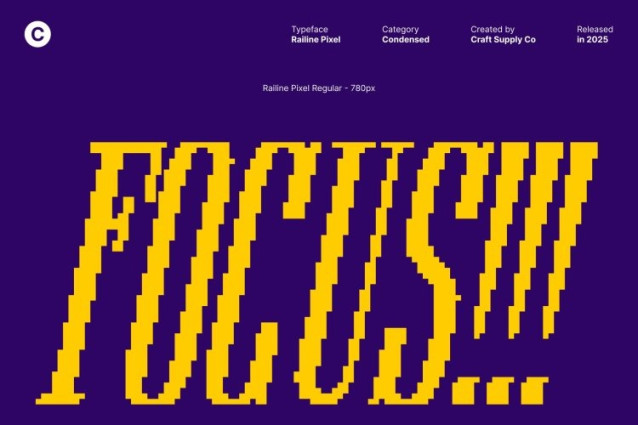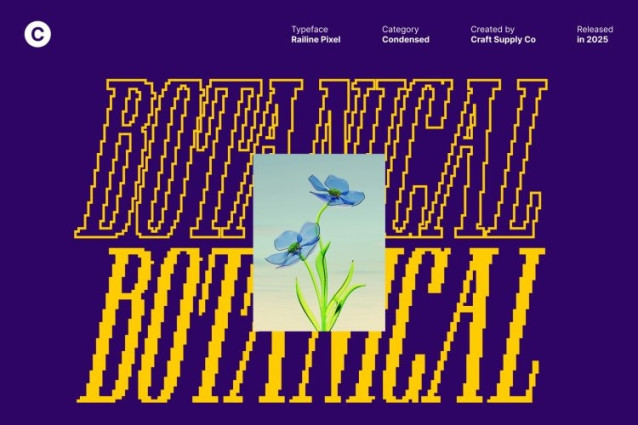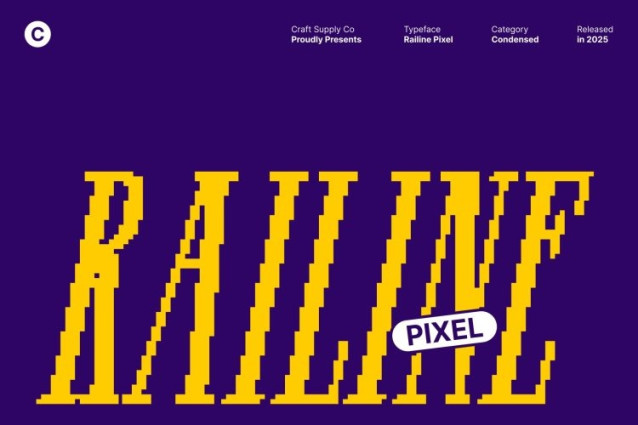
Railine Pixel Font
Railine Pixel Font This is a condensed modern serif font designed to combine timeless elegance with contemporary sophistication. Its long, slim serifs and graceful shapes create a polished, refined appearance that elevates any design. Perfect for projects seeking both style and professionalism, Railine Pixel offers a high-end aesthetic suitable for luxury branding, editorial layouts, and premium posters.
Condensed Design for Stylish, Space-Efficient Typography
The font’s condensed structure allows for maximum impact in limited space while maintaining readability and visual harmony. Each character flows seamlessly, delivering a sophisticated and professional impression. This font is ideal for designers looking to balance elegance with functionality, making it perfect for high-end design projects and creative editorial work.
Pixelated Texture Adds Digital Flair and Personality
Enhanced with a subtle pixel effect, This font brings a contemporary digital personality to its refined serif forms. The pixelated detailing adds depth and modernity, bridging classical elegance with a fresh, tech-inspired aesthetic. This unique feature gives every project a distinctive, stylish edge.
Perfect for Luxury Branding, Posters, and Editorial Layouts
This font excels in applications where refinement and artistry are paramount. From luxury branding and editorial design to sophisticated posters and creative digital projects, its combination of slender serifs, elegant forms, and pixel-infused style makes it a versatile and striking choice.